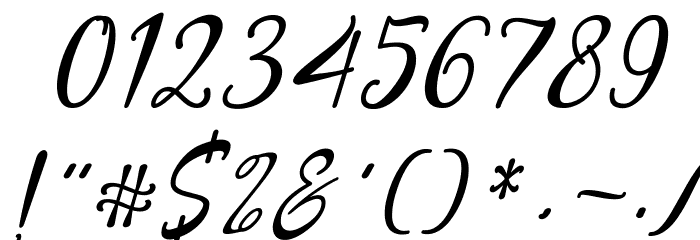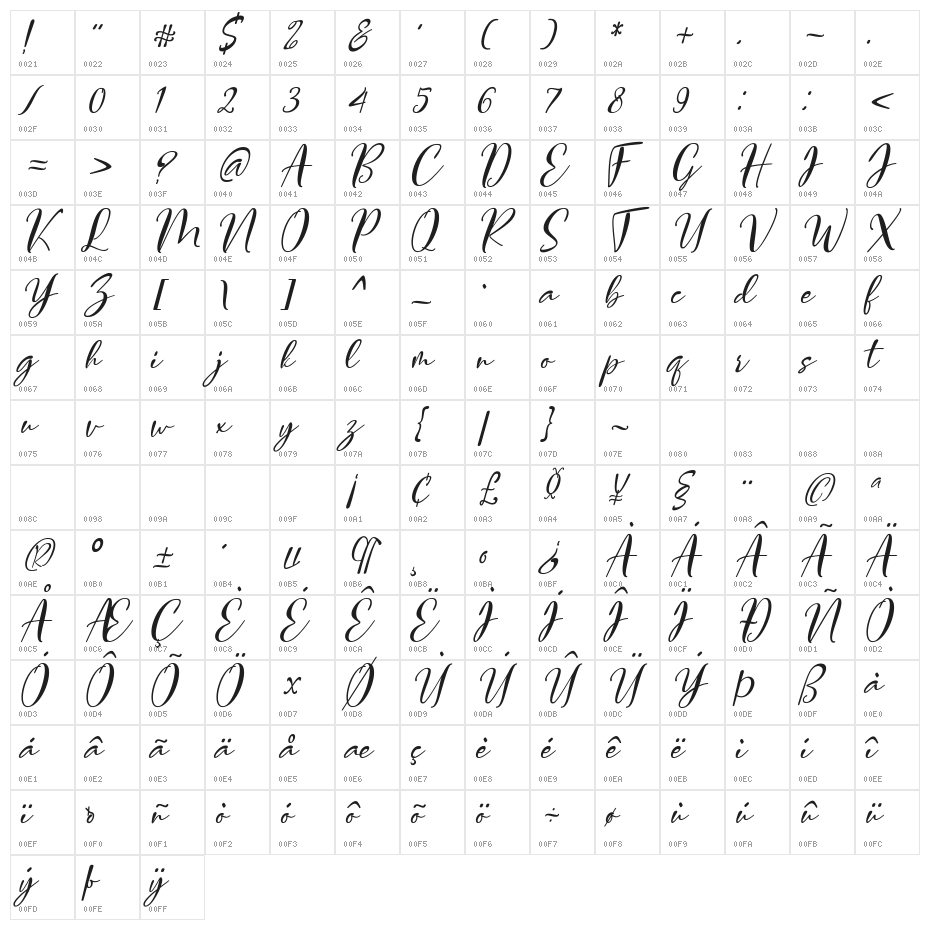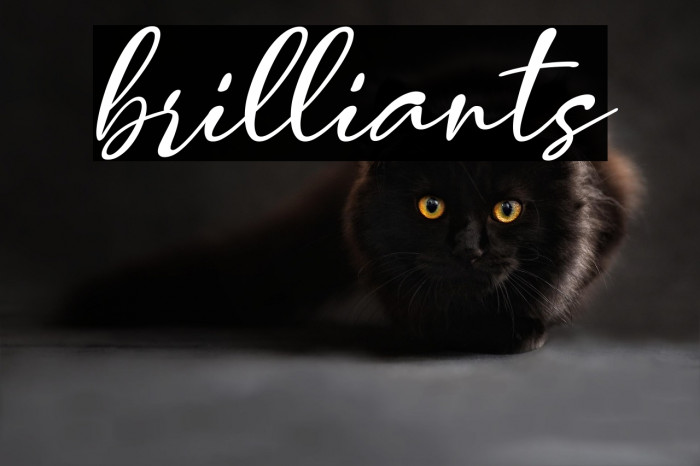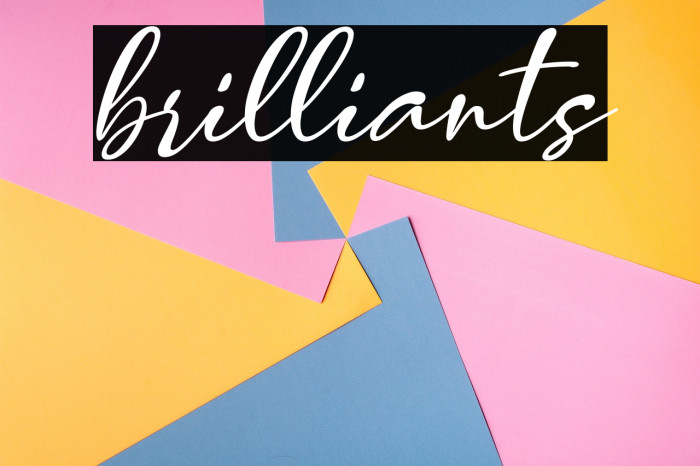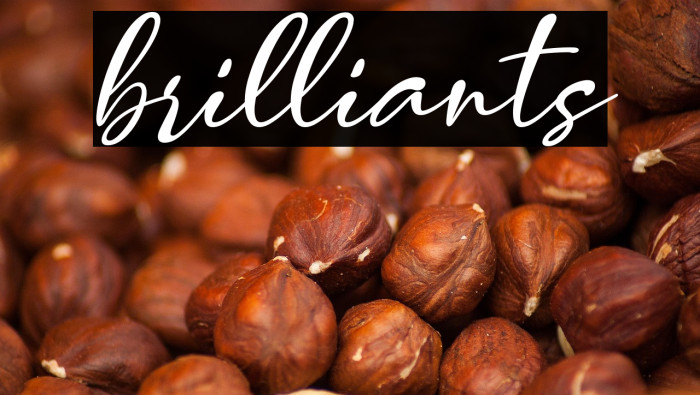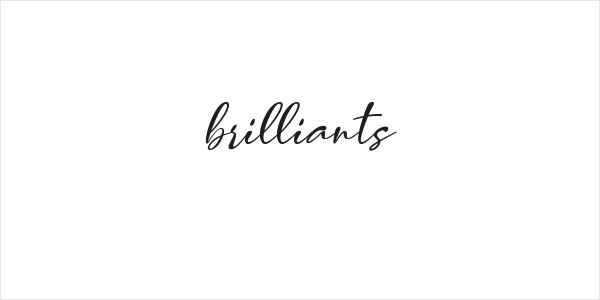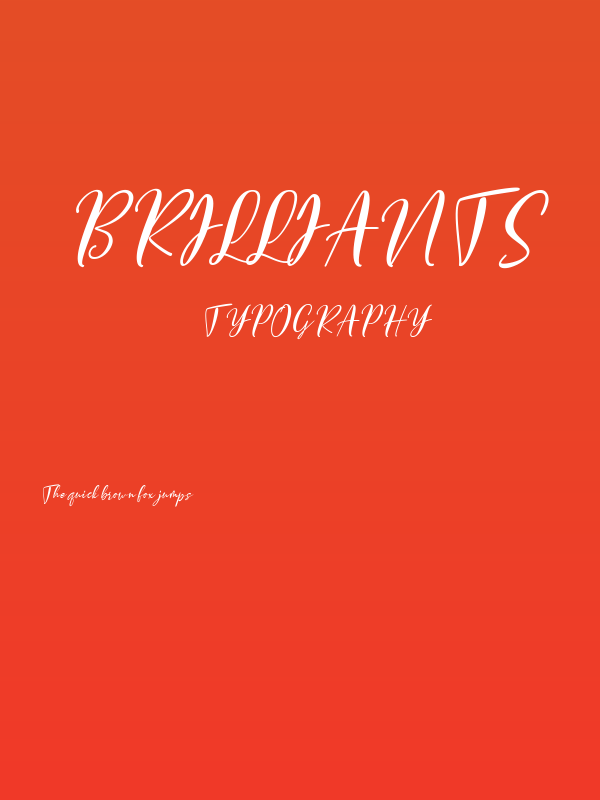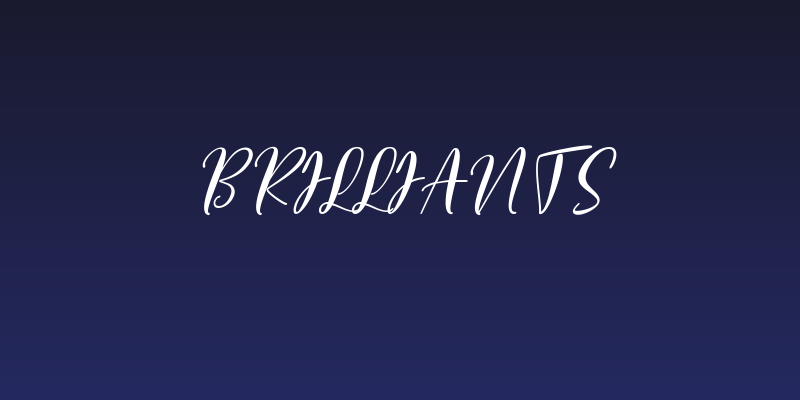
brilliants Font
brilliants Description
This elegant script font features a flowing, cursive style with a modern twist. The uppercase letters are tall and slender, with graceful curves and loops that give a sense of movement and fluidity. The lowercase letters maintain a consistent style, with smooth connections between each character, creating a seamless and harmonious look. The numerals are bold and slightly rounded, complementing the overall aesthetic. Special characters are thoughtfully designed to match the script's elegance, making it suitable for a variety of creative projects.
Use CaseLogos, Invitations, Decorative text
Proposed ProjectsIdeal for wedding invitations, branding, greeting cards, and elegant packaging designs.